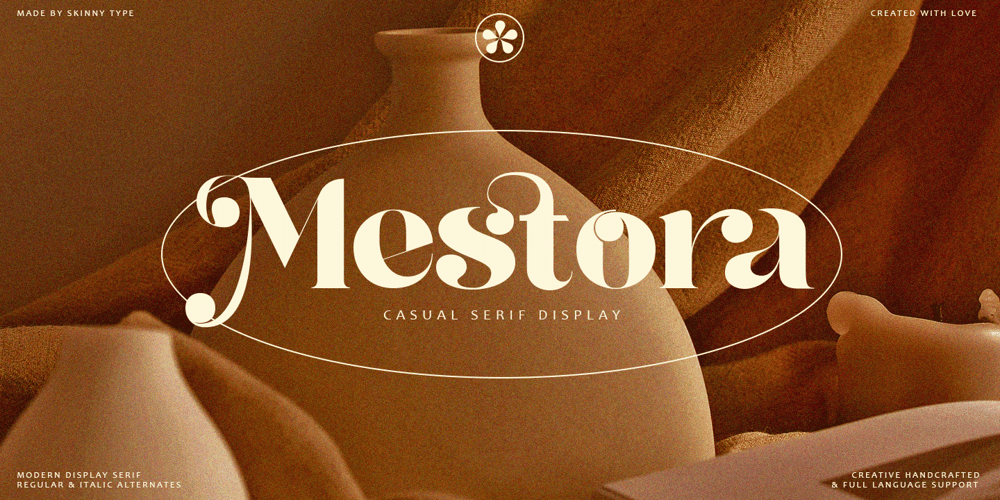
Mestora Font Family was designed by Muhajir and published by Skinny Type. Mestora contains 2 styles and family package options. Mestora is a classic and elegant retro serif with a modern twist. With its decent readability, Mestora is perfect for both display as well as body text.Inspired by all the retro aesthetics making a comeback, Mestora is perfectly suitable for creating nostalgic yet still clean and elegant designs such as logos, packaging, editorial, and more.Mestora FEATURE:Europeans languagesAlternates Uppercase & LowercaseLigaturesSOFTWARE REQUIREMENTS:The regular fonts in the pack are widely supported by most software – To get the full functionality of the large selection of standard ligatures (custom connected letters) in the script font, any software that can read OpenType fonts will do.To generate all ligatures, please open Adobe Ilustrator – Type – Glyphs.Please drop me a message if you have trouble regarding either installing or using this font.🌟While using this product, if you encounter any problem or spot something we may have missed, please don’t hesitate to drop us a message. We’d love to hear your feedback in order to further fine-tune our products. Thank you!Skinny Type